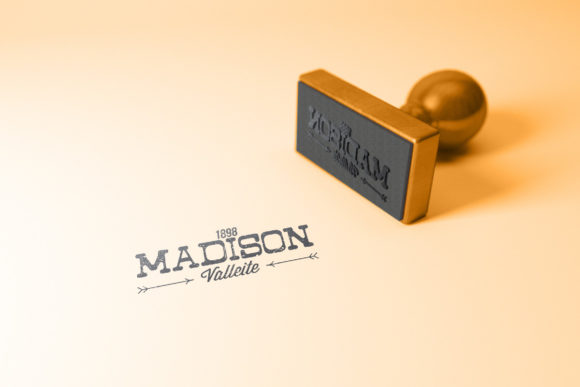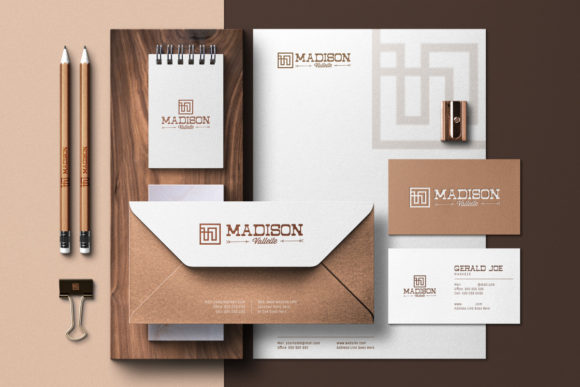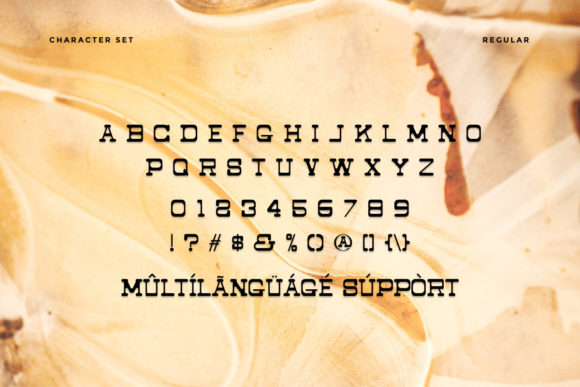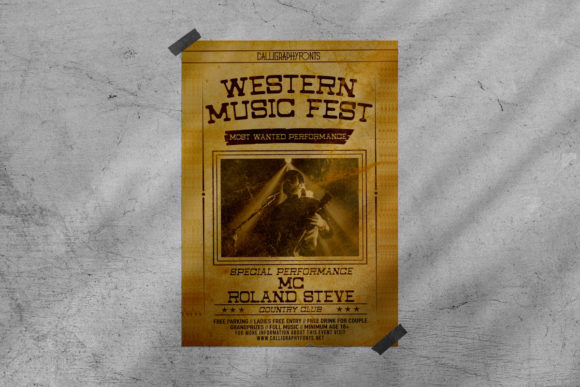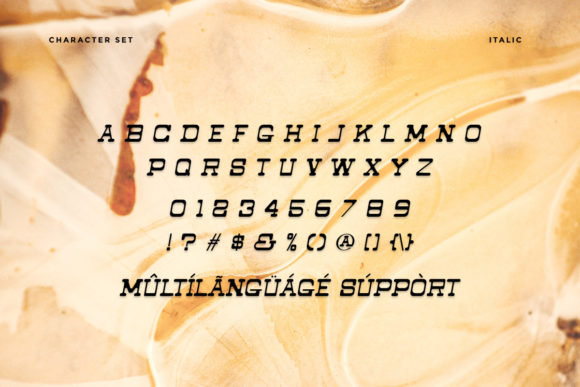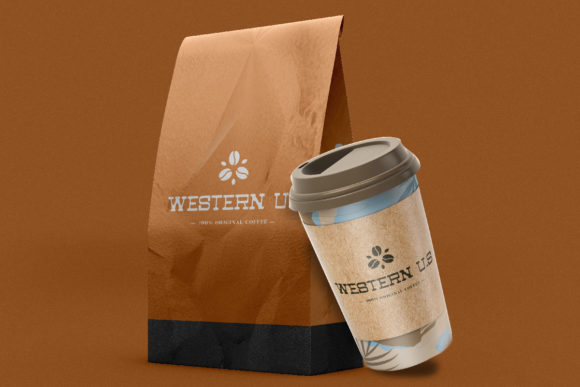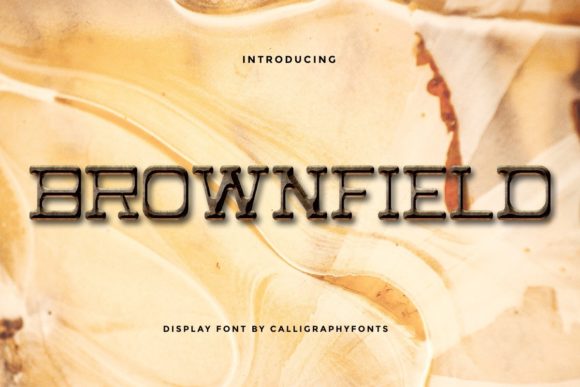
The Brownfield Font: A Vintage Western Flair for Your Creative Projects
I’ll never forget the time I was working on a branding project for a client who wanted a vintage, western-inspired look. I had spent hours scouring the internet for the perfect font, but nothing seemed quite right. That was until I stumbled upon the Brownfield font. With its rugged, slab serif design, it was love at first sight! In this article, I’ll share my experience with the Brownfield font, its features, and how to make the most of it in your creative projects.
So, what makes the Brownfield font so special? Here are a few things that I absolutely love:
• ✨ Vintage western flair: The Brownfield font has a unique, rugged charm that’s perfect for creating western-inspired designs.
• ✅ Highly versatile: Whether you’re working on a card, label, or branding project, the Brownfield font can elevate your design with its classic look.
• 💯 Easy to read: Despite its vintage vibe, the Brownfield font is surprisingly easy to read, even at smaller sizes.
Of course, no font is perfect, and the Brownfield font has a few quirks to be aware of:
• 🤔 Limited online use: While the Brownfield font is perfect for print designs, it may not be the best choice for online use due to its relatively large file size.
• ⚠️ No built-in italics: Unfortunately, the Brownfield font doesn’t come with built-in italics, which may limit its use in certain design situations.
The Story Behind Brownfield
The Brownfield font was designed by a team of typographers who wanted to create a font that captured the spirit of the American West. Inspired by vintage wanted posters and western signage, the Brownfield font is a love letter to the rugged, wild west.
What is the Brownfield font best used for? The Brownfield font is perfect for creating western-inspired designs, such as branding, labels, and cards.
Is the Brownfield font easy to read? Yes, despite its vintage vibe, the Brownfield font is surprisingly easy to read, even at smaller sizes.
Does the Brownfield font come with a lot of extra features? Yes, the Brownfield font comes with a range of OpenType features, including glyphs and stylistic alternates.